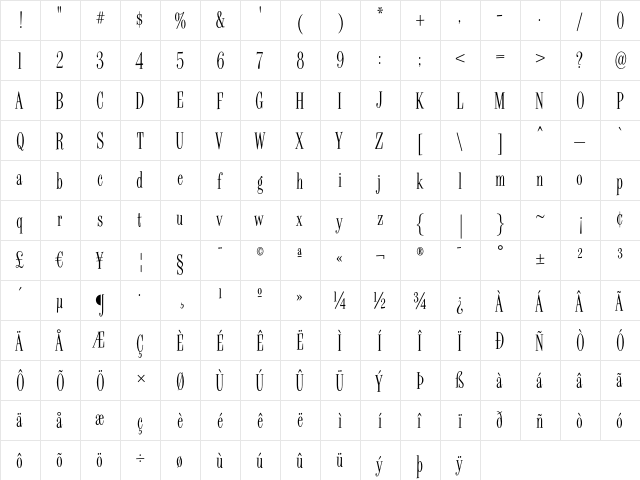
Beatnik Regular
Design Context for Beatnik Typeface
Beatnik is a composed and adaptable typeface that performs quietly and consistently across a wide range of design contexts.